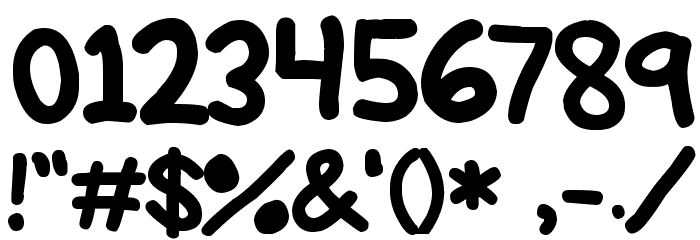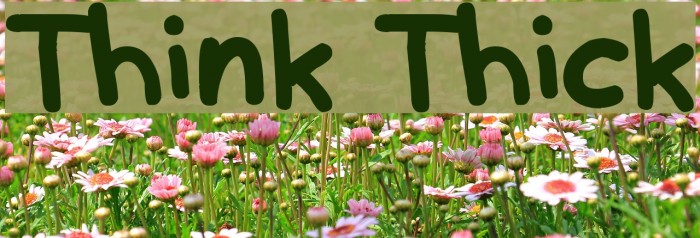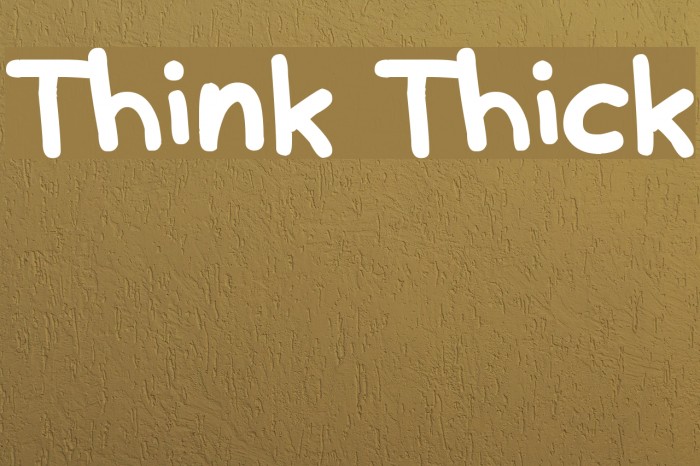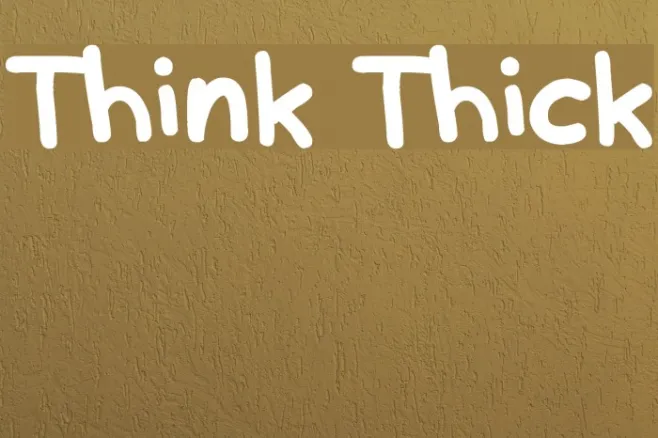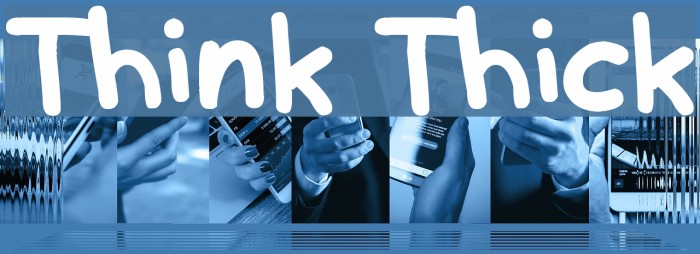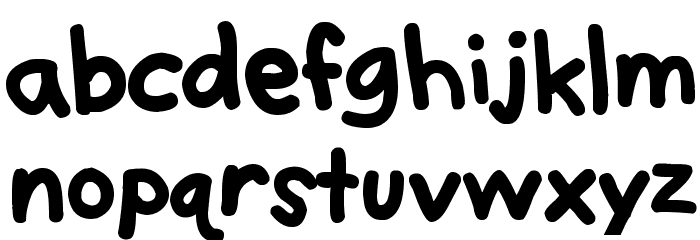
Think Thick Font
Think Thick Description
This playful and bold font features thick, rounded strokes that give it a friendly and approachable appearance. The characters are slightly irregular, adding a hand-drawn, whimsical feel. The uppercase and lowercase letters maintain a consistent style, with a slight tilt that enhances its casual nature. Numbers and special characters are equally bold and maintain the same playful aesthetic, making this font versatile for various creative projects. The overall style is informal and fun, making it ideal for designs that aim to convey a sense of joy and creativity.
| Overall Style | Playful, Casual |
| Proposed Projects | Ideal for children's books, playful branding, casual invitations, and creative posters. |